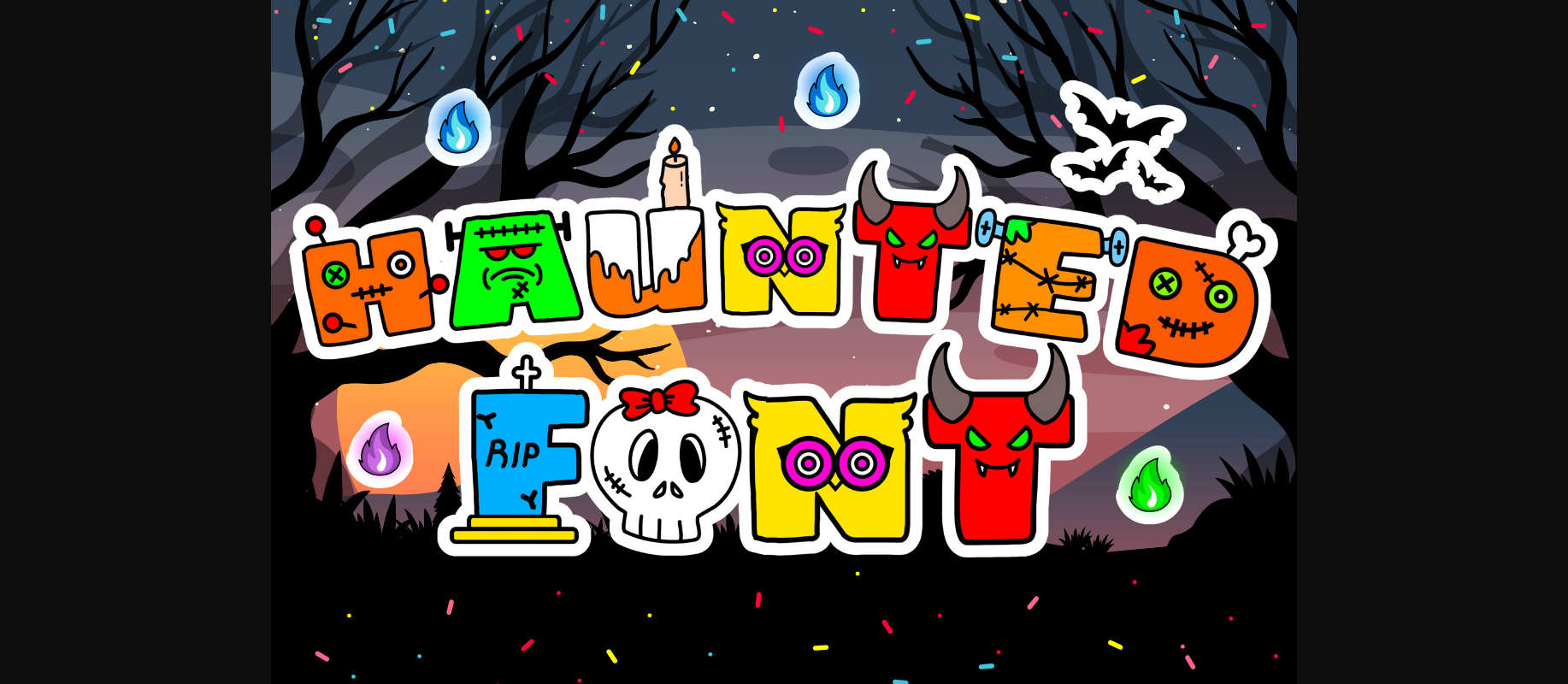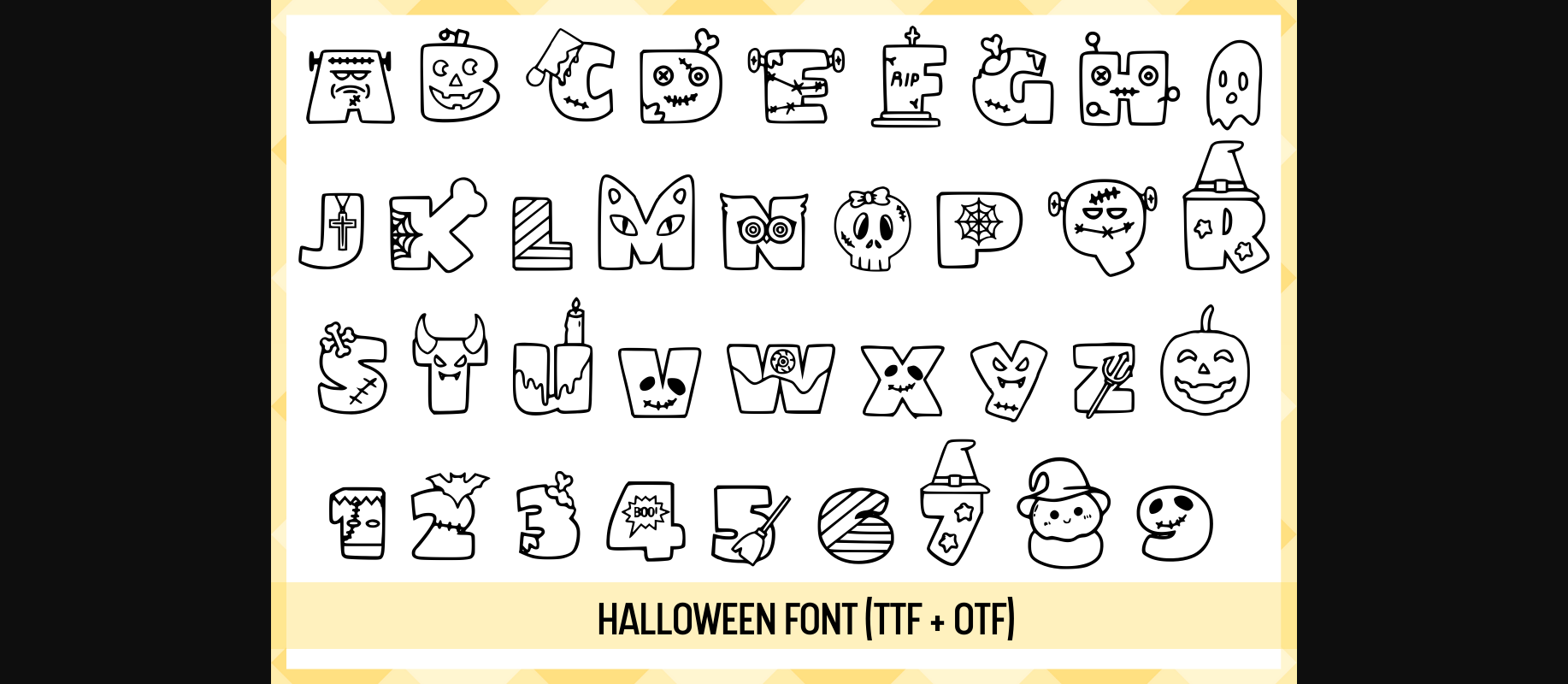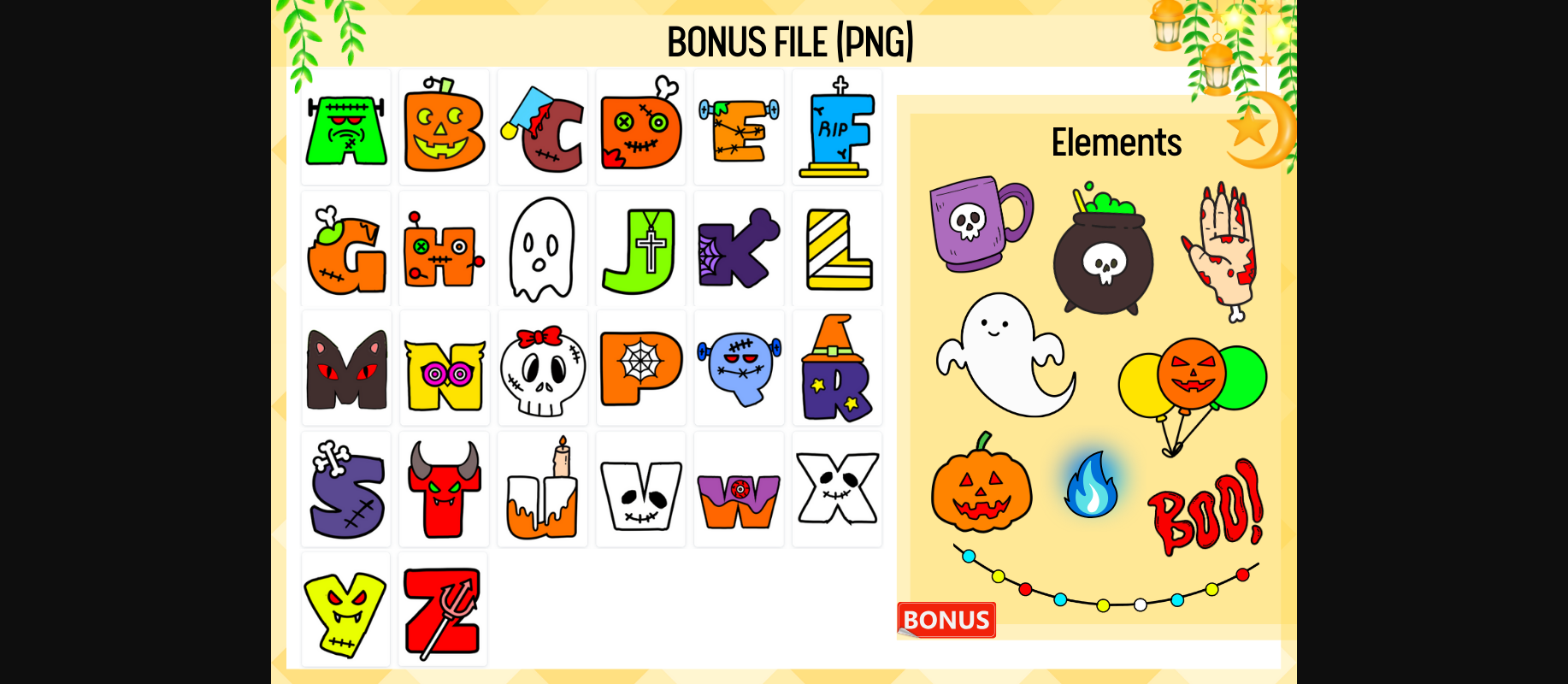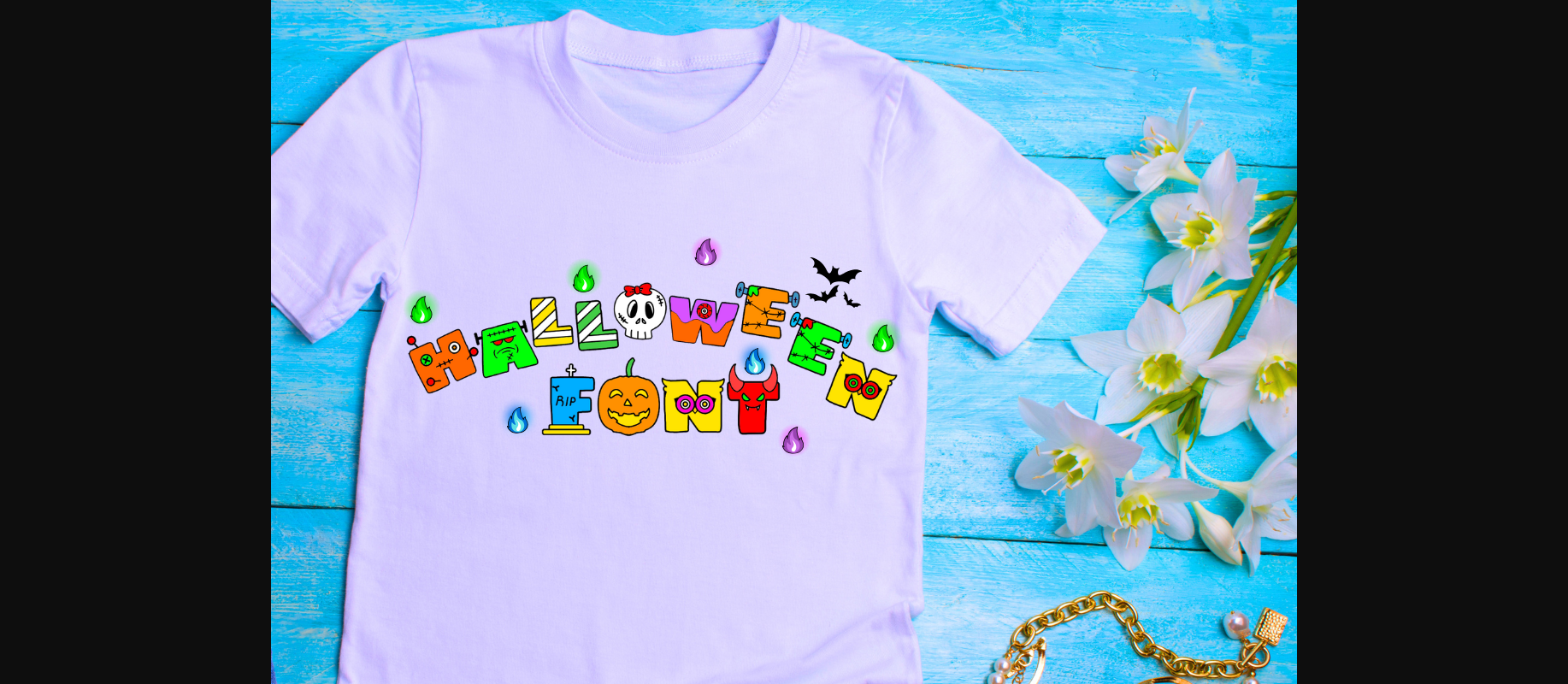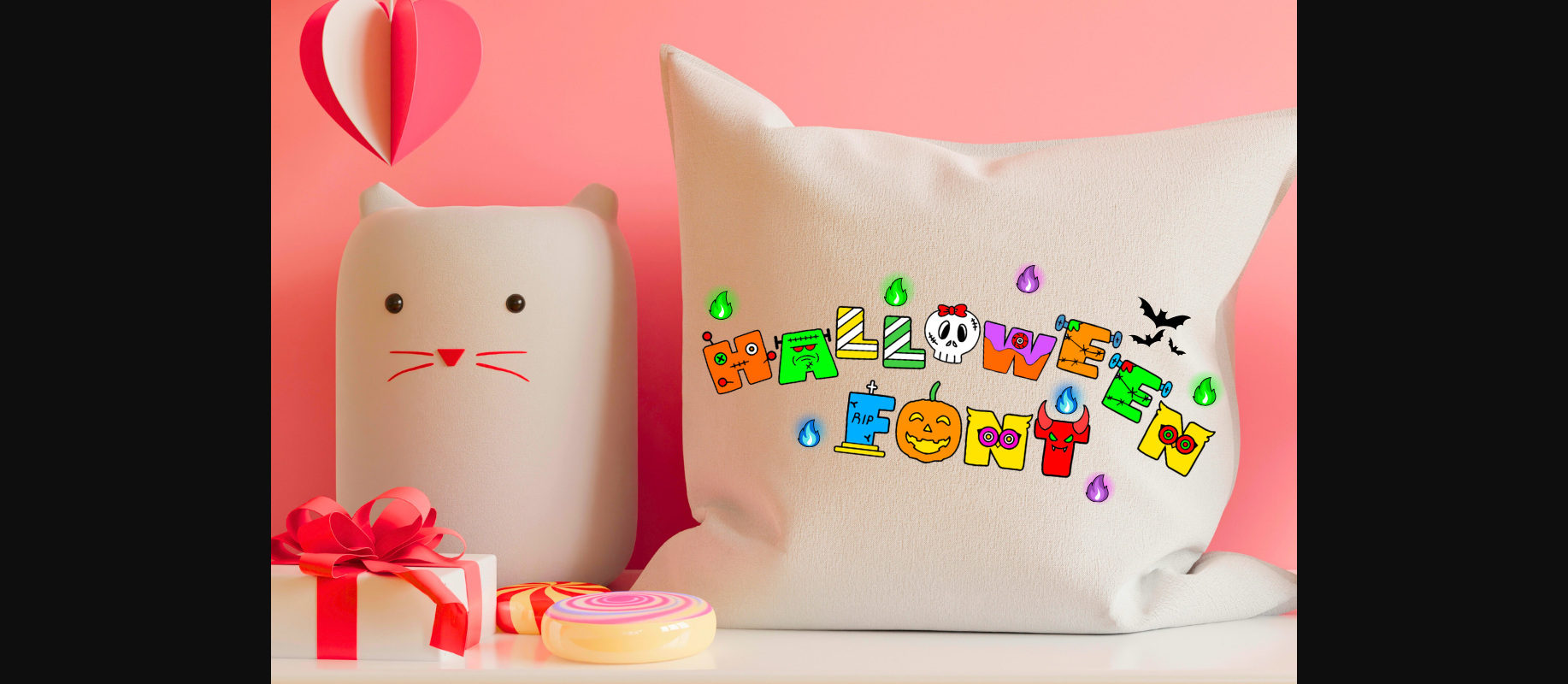
Halloween Font
About Halloween Font
Halloween is a delightfully spooky typeface, capturing the essence of the season with its playful yet eerie design. Featuring whimsical shapes and spooky details, it’s perfect for Halloween-themed projects, party invitations, posters, and more, adding a fun and festive touch to any design.